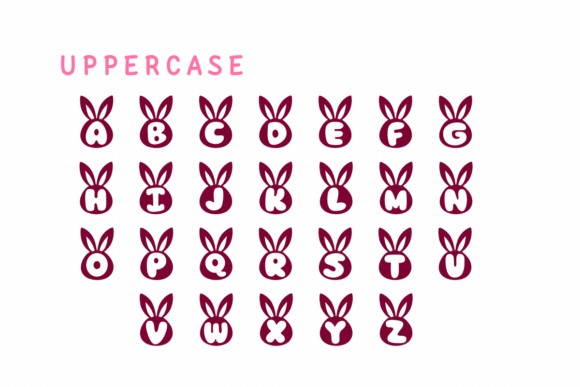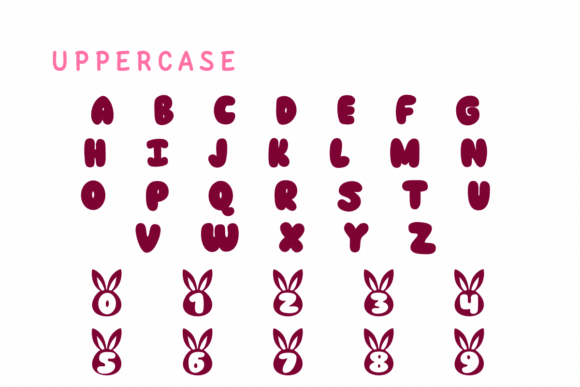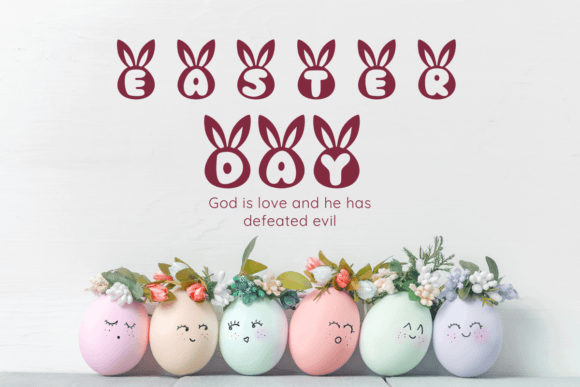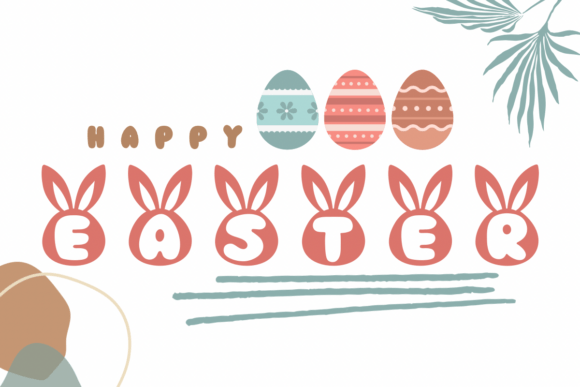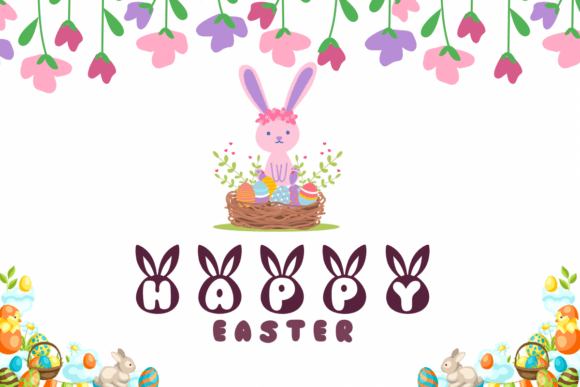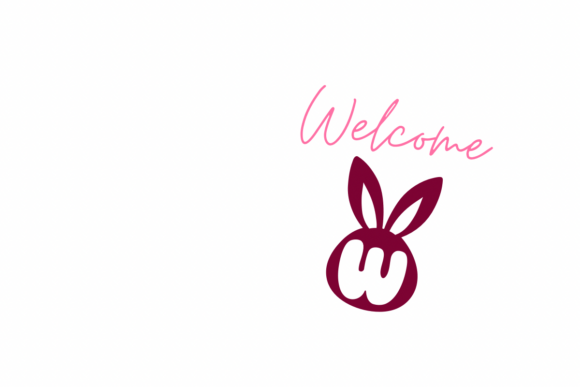
The Easter Egg Bunny Font: A Fun and Decorative Addition to Your Designs
- ✨ The Easter Egg Bunny font is incredibly versatile and can be used for a wide range of projects, from taking notes and writing diaries to creating greeting cards and social media posts.
- ✅ Its playful and decorative style is perfect for Easter-themed designs, but it can also add a fun touch to other spring-inspired projects.
- 🎉 The font comes with a range of OpenType features, glyphs, and stylistic alternates, making it easy to customize and experiment with different looks.
While I love the Easter Egg Bunny font, there are a few things to keep in mind:
- 🤔 The font can be a bit overwhelming for body text, so it’s best used for headlines, titles, or short paragraphs.
- ⚠️ Some of the glyphs and special characters can be a bit finicky, so be sure to experiment and test them thoroughly.
The Easter Egg Bunny font was inspired by the playful and whimsical world of Easter. The designer wanted to create a font that captured the fun and excitement of the holiday, while also being versatile and easy to use.
Q: What is the Easter Egg Bunny font best used for?
A: The Easter Egg Bunny font is best used for Easter-themed designs, such as greeting cards, social media posts, and banners. However, it can also be used for other spring-inspired projects or anytime you want to add a playful touch to your design.
Q: Is the Easter Egg Bunny font easy to read?
A: The Easter Egg Bunny font is a decorative font, so it’s not always the easiest to read. However, it’s perfect for headlines, titles, and short paragraphs, and can add a fun and playful touch to your design.